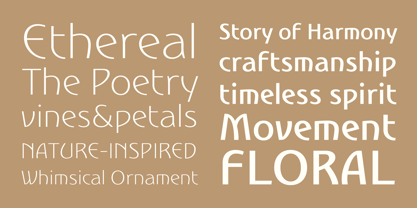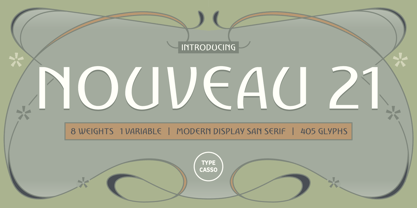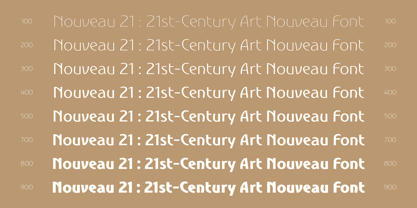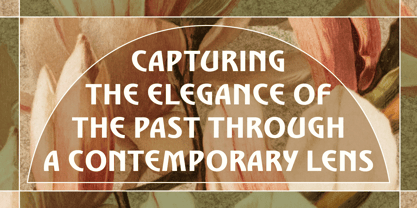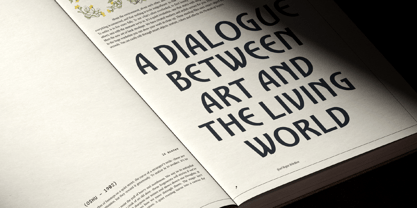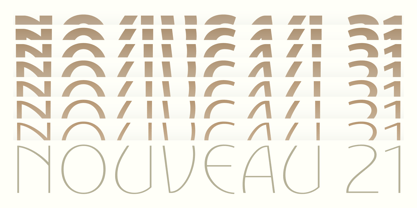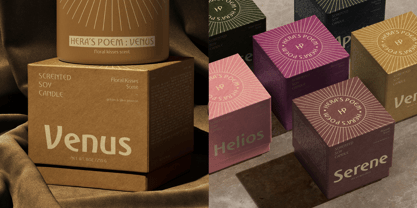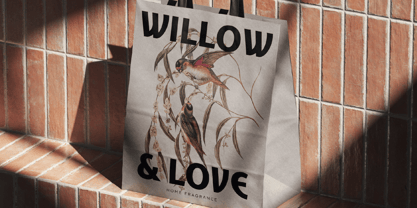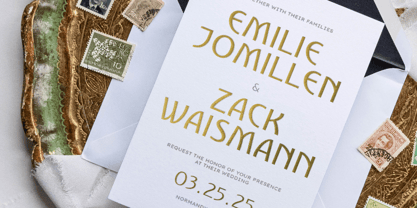
Nouveau 21
by TYPECASSO
The Nouveau 21 Font Family was designed by Venny Setiawan and published by TYPECASSO. Nouveau 21 contains 9 styles and family package options. More about this family
NOUVEAU 21 is a modern sans serif display typeface inspired by the graceful beauty of Art Nouveau design. It reinterprets the era’s organic curves and flowing forms through a contemporary lens, blending historical charm with modern precision. Each letter carries a sense of movement and elegance. With its captivating form and refined balance, NOUVEAU 21 is ideal for brands and creative projects that seek an exclusive, sophisticated identity. From luxury packaging and editorial layouts to visual campaigns and cultural exhibitions, it lends a touch of timeless refinement and character to any design. The type family features eight expressive weights, from the beautifully delicate Hair to the confident yet graceful Black, offering designers a full range of contrast and emotion. Whether used subtly or boldly, NOUVEAU 21 embodies a dialogue between craftsmanship and modern design, paying homage to the past while shaping a new visual language for the present.
Designers: Venny Setiawan
Foundry: TYPECASSO
Nouveau 21